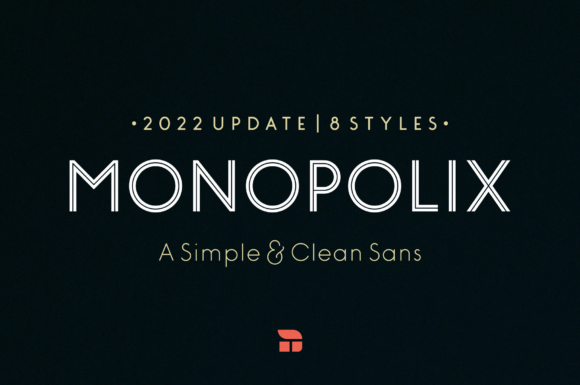
Step into the world of sophistication and style with Monopolix Font, a modern sans-serif typeface that exudes elegance and minimalism. Born from the creative minds at nimatype, Monopolix is not just a font; it's an experience that will elevate your designs to new heights of allure.
With its clean and linear strokes, Monopolix brings a touch of contemporary charm to your projects. Its monolinear design ensures a consistent visual flow, making it perfect for creating striking logos, captivating posters, and eye-catching titles. Whether you're a seasoned designer or just starting, Monopolix is the perfect tool to add a touch of sophistication to your work.
Dive into the versatile world of Monopolix and unlock endless creative possibilities. Its adaptability shines in various design applications, from fashion logos to minimalist posters. Unleash your inner artist and let Monopolix transform your designs into masterpieces that speak volumes. Experience the power of simplicity and elegance with Monopolix, and watch your creations come to life with a newfound sense of allure.
Don't settle for ordinary, embrace the extraordinary with Monopolix Font. Let your designs radiate confidence and style, leaving a lasting impression on your audience. Monopolix is more than just a font; it's a statement of individuality and a testament to your impeccable taste. Embrace the Monopolix experience and elevate your designs to the next level.